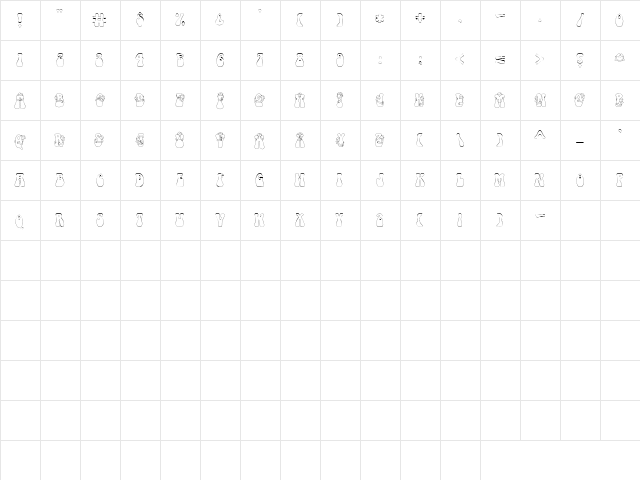
LD Hugs Regular
Design Context for LD Hugs Typeface
LD Hugs is a composed and adaptable typeface that performs quietly and consistently across a wide range of design contexts.